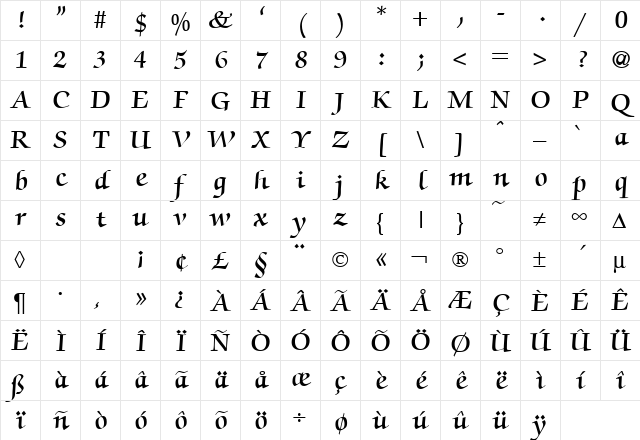
Design Context for ZabriskieScriptDemi
ZabriskieScriptDemi flows with the natural rhythm of handwritten lettering, making it ideal for designs that call for warmth and personal expression.
Font Pairing: Combine ZabriskieScriptDemi with a simple geometric sans for maximum contrast - the tension between flowing curves and clean structure is a classic typographic pairing.
Pro Tip: Use ZabriskieScriptDemi for short runs of text - names, titles, or taglines. Extended body copy in script faces tires the eye quickly.